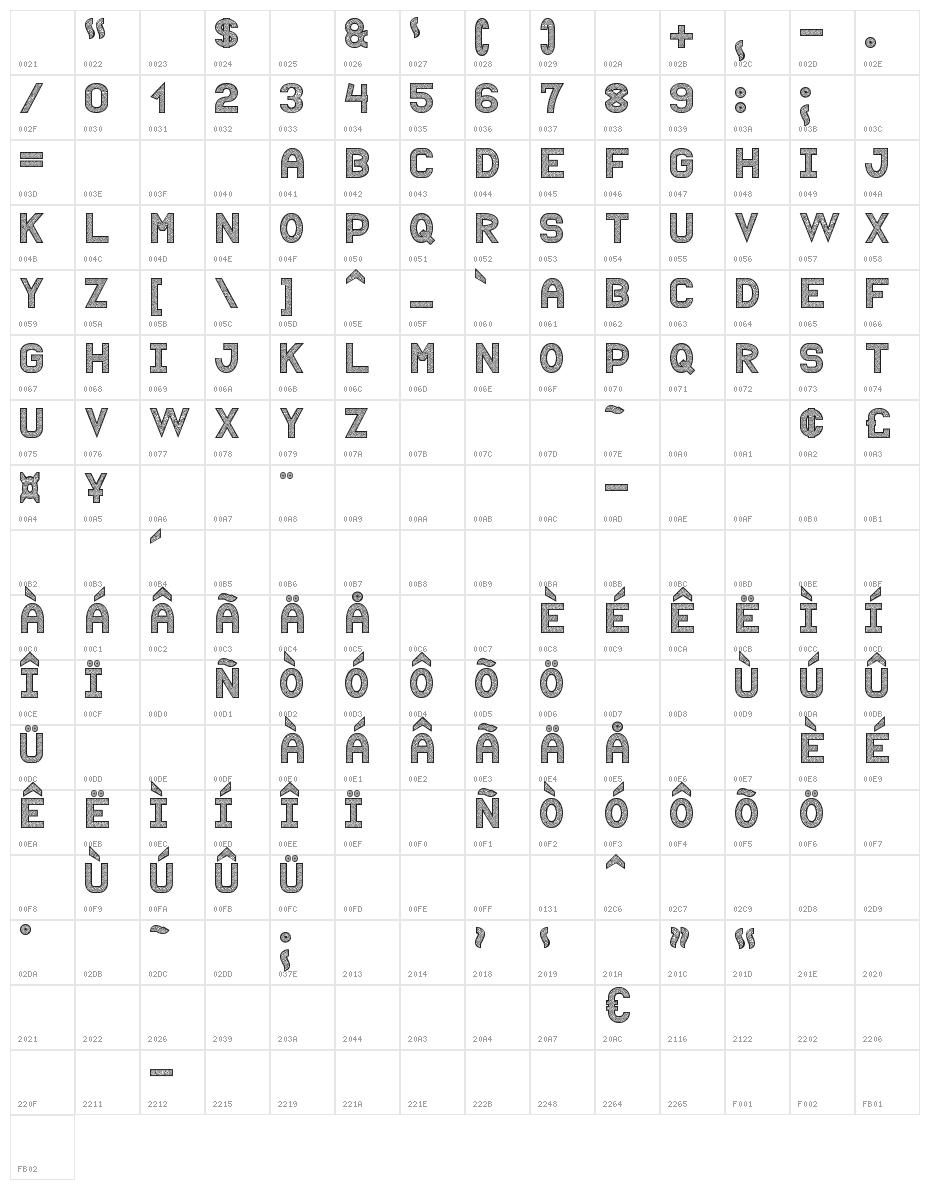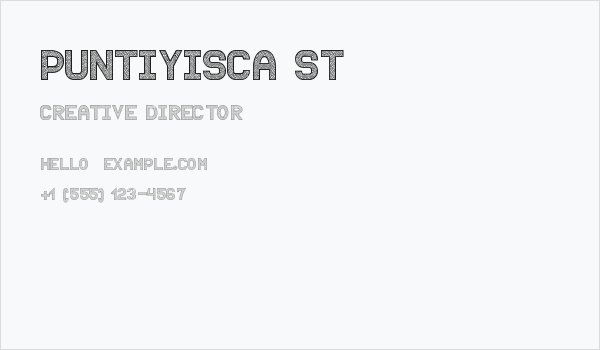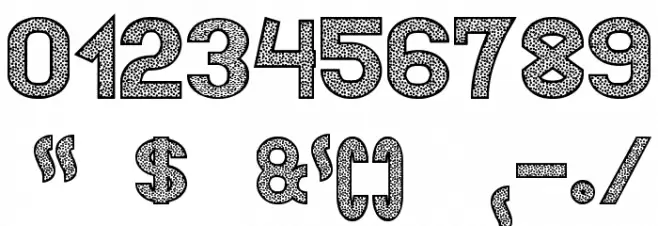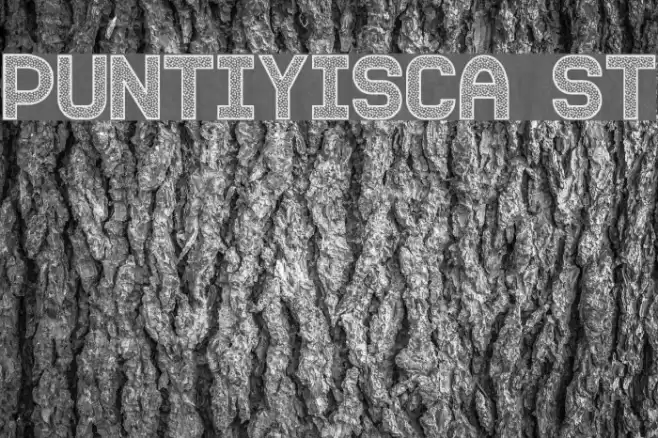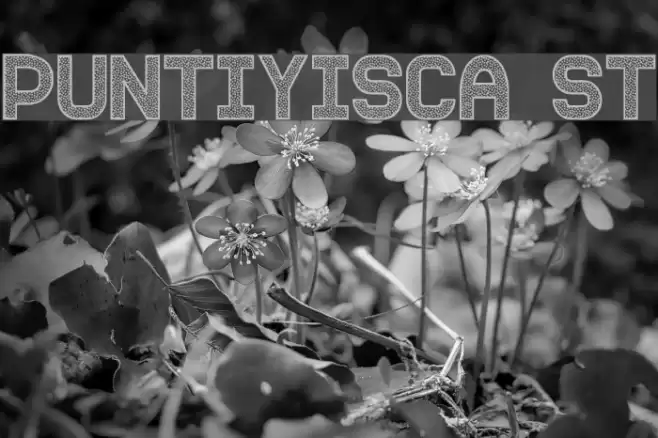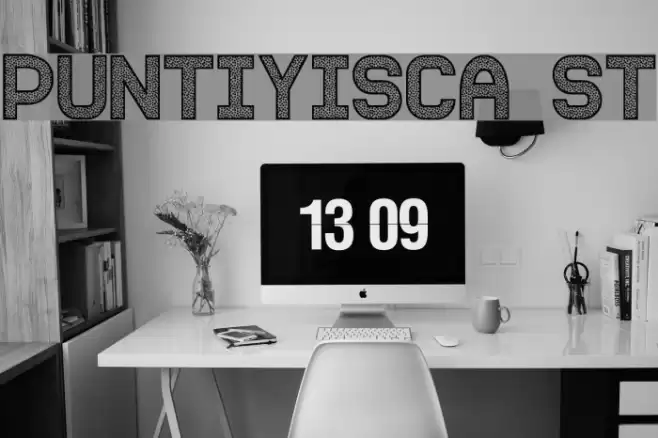
Puntiyisca St Font
Puntiyisca St Description
This font features a bold, decorative style with a unique stippled texture filling each character. The uppercase and lowercase letters maintain a consistent width, creating a cohesive look. The numbers and special characters follow the same design, ensuring uniformity across all elements. The font's playful and eye-catching appearance makes it ideal for projects that require a standout visual element. Its boldness and texture make it particularly suitable for creative and artistic designs.
PUNTIYISCA-ST UPPERCASE
PUNTIYISCA-ST LOWERCASE
PUNTIYISCA-ST OTHER CHARS
| Proposed Projects | Ideal for posters, logos, headlines, and any design requiring a bold, artistic touch. |